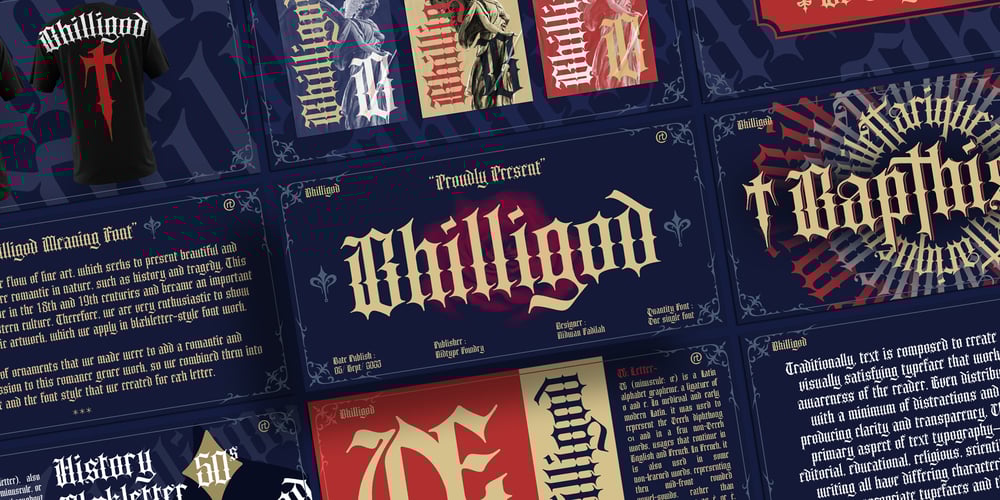
Bhilligod
Bhilligod font
Bhilligod Font Family was designed by Ridwan Fadilah and published by Ridtype. Bhilligod contains 1 styles and family package options. Bhilligod is inspired by the flow of fine art, which seeks to present beautiful and fantastical paintings that are romantic in nature, such as history and tragedy.This style was popular worldwide in the 18th and 19th centuries and became an important part of European and Western culture. Therefore, we are very enthusiastic to show our best work in romantic artwork, which we apply in blackletter-style font work.